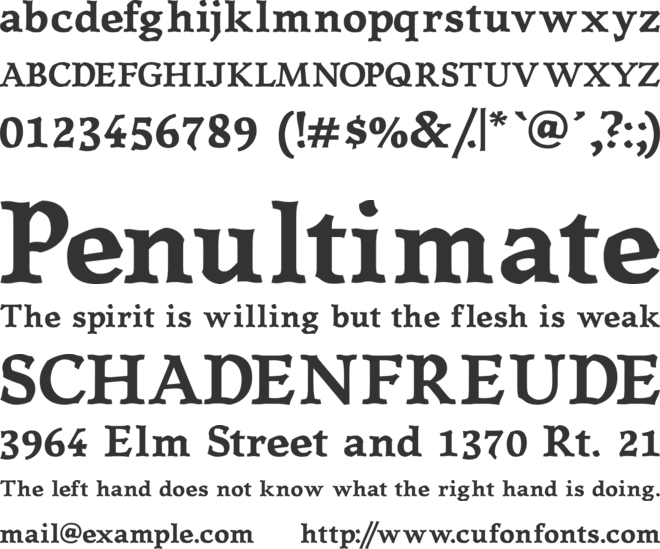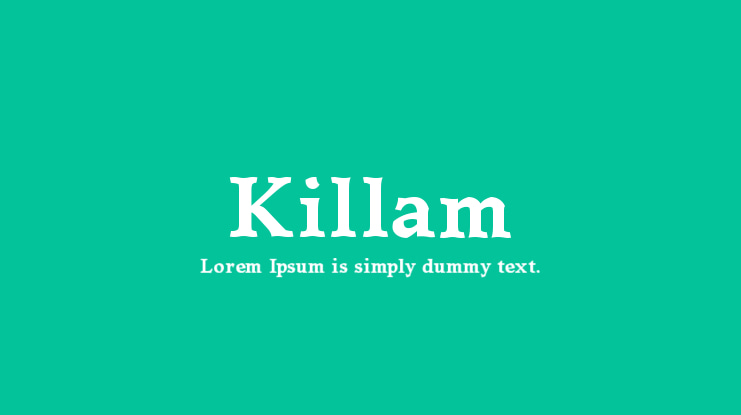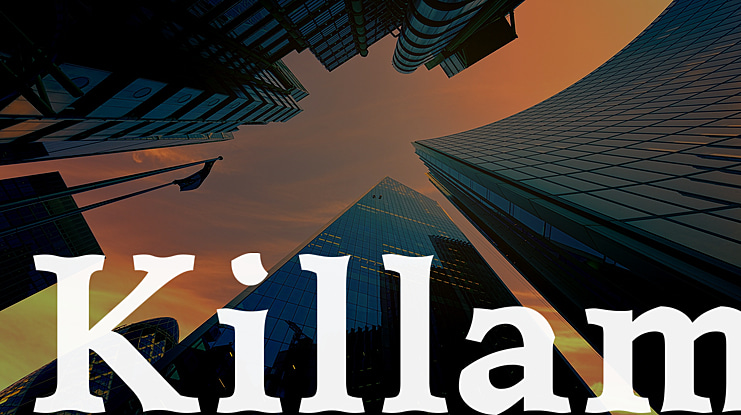
Killam Font
Stephen Nixon
Killam, Bold is a font originally made for garden labels, but its meld of calligraphic, humanist and slab-serif elements make it an original, ideal, timeless type to use in stationary, book design, or designs that seek an old-world aura.